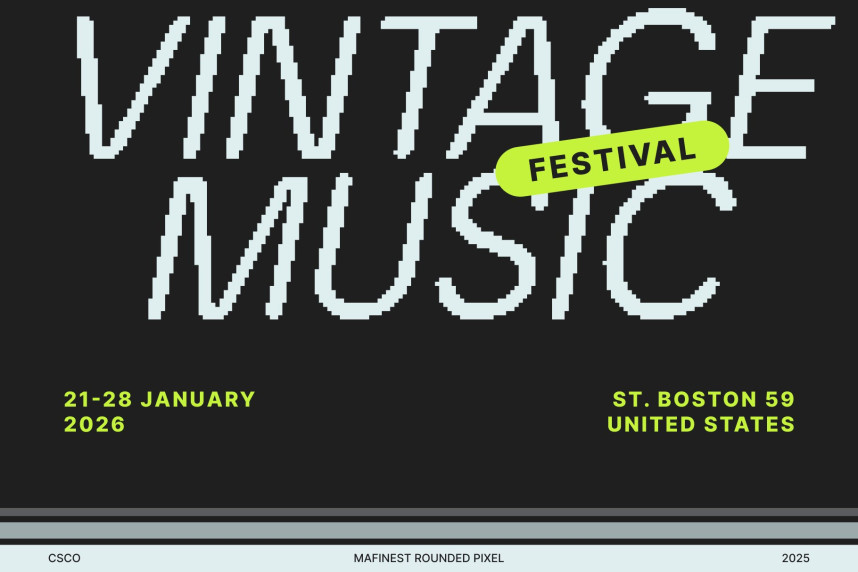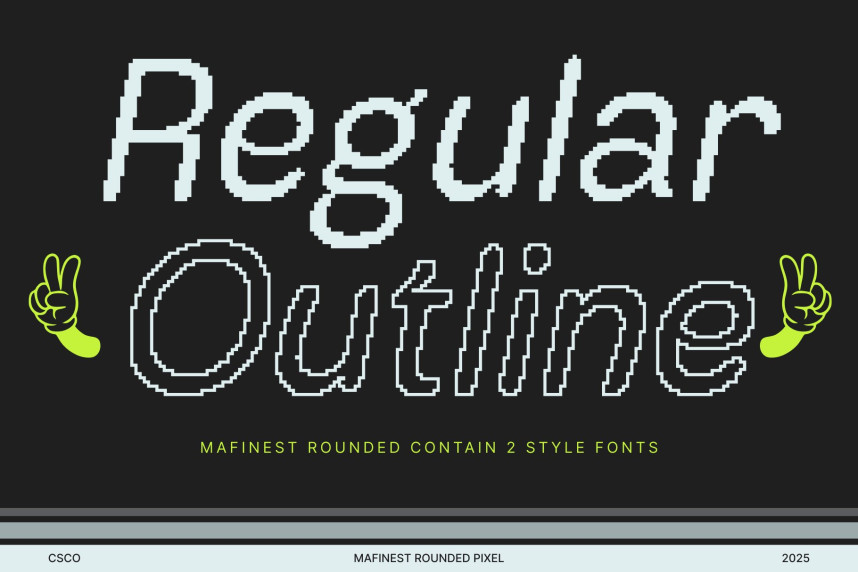
Mafinest Rounded Pixel Font
Mafinest Rounded Pixel Font – Modern Grotesk Sans Serif with Pixel Style Clean, Grotesk, and Geometric Modernity. This is a modern sans serif display font built with clean grotesk structure and precise geometric form. Its polished appearance brings a professional, contemporary, and visually captivating feel perfect for branding, editorial layouts, posters, and modern creative work that demands clarity and strong visual identity.